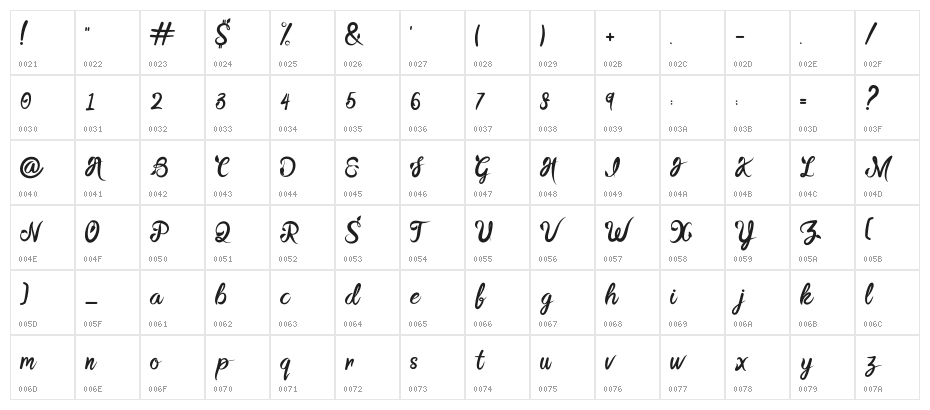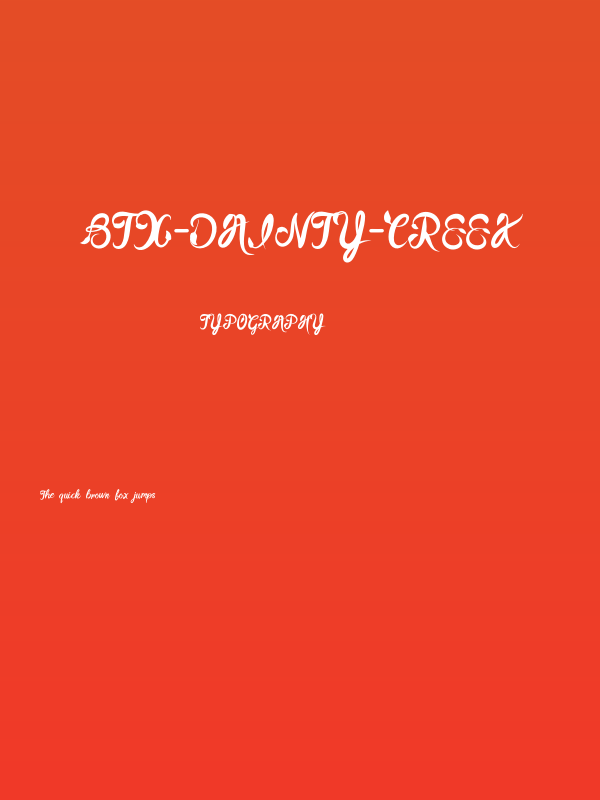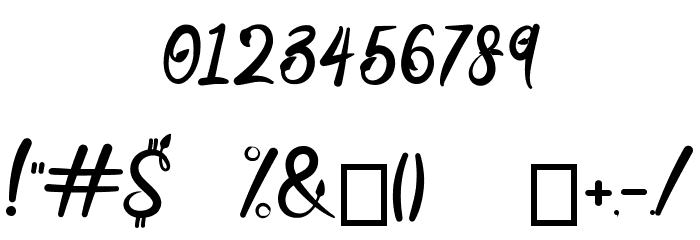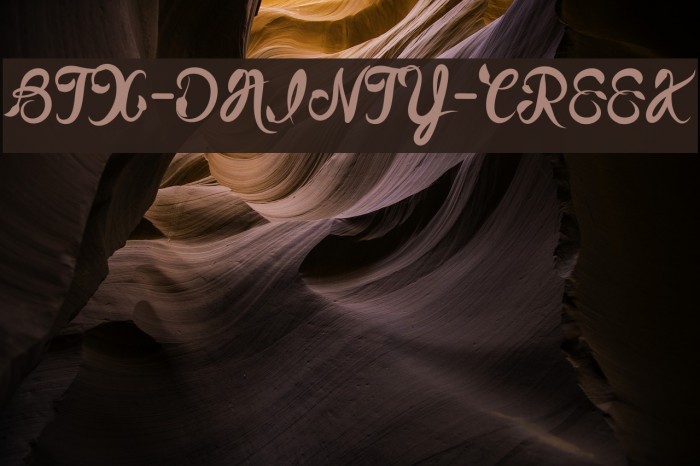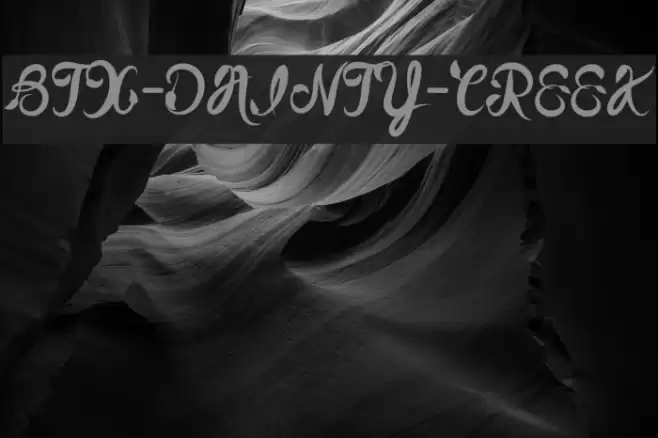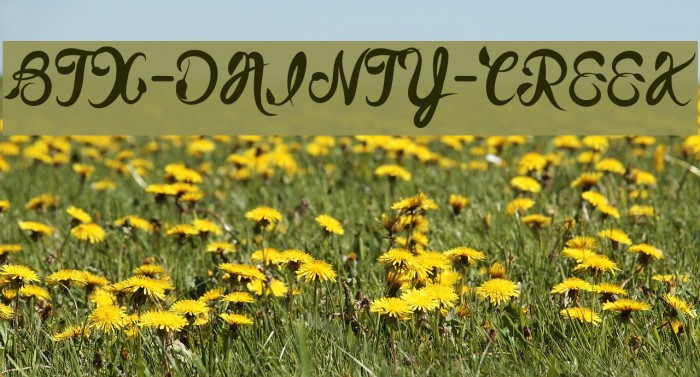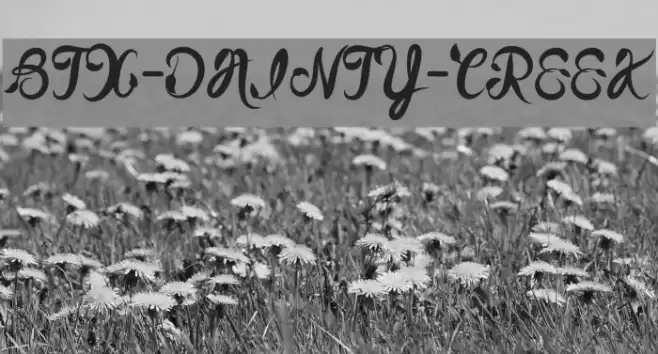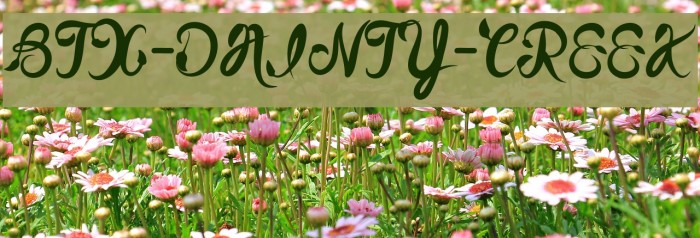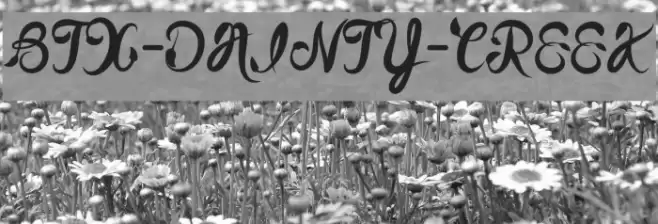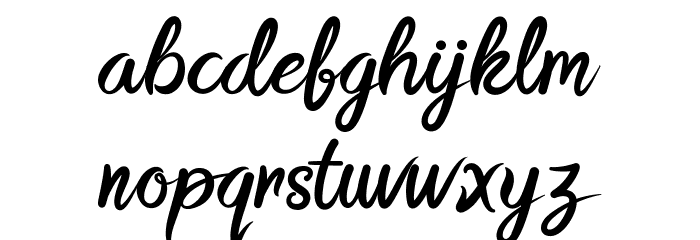
BTX-DAINTY-CREEK Font
✎ Calligraphic
BTX-DAINTY-CREEK Description
This font features an elegant and flowing script style, characterized by its smooth, cursive strokes and decorative flourishes. The uppercase letters are bold and ornate, with a distinct calligraphic influence, while the lowercase letters maintain a consistent fluidity that enhances readability. The numerals are designed with a similar flair, ensuring a cohesive look across all characters. Special characters are thoughtfully integrated, adding to the font's versatility. This font exudes a sense of sophistication and charm, making it ideal for projects that require a touch of elegance.
| Overall Style | Elegant |
| Use Case | Logos, Invitations, Branding |
| Proposed Projects | Ideal for wedding invitations, elegant branding, greeting cards, and high-end product packaging. |